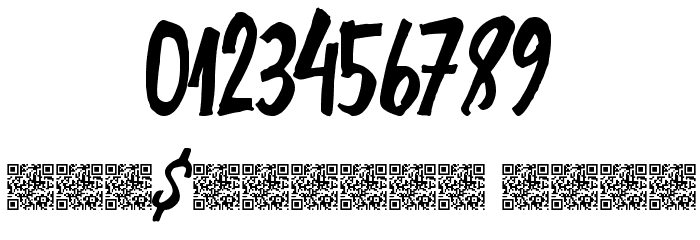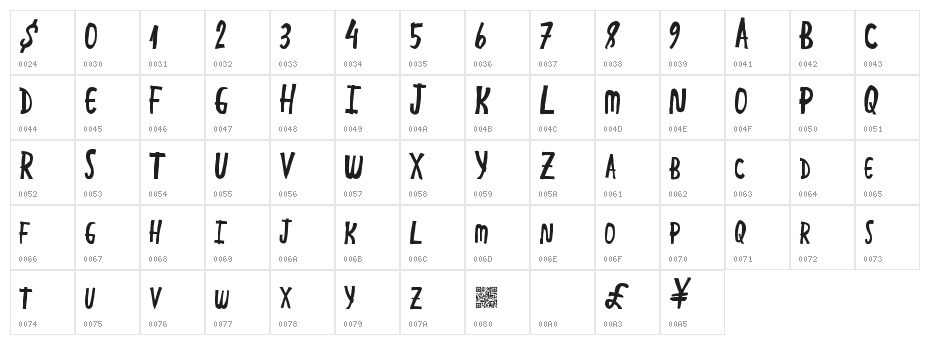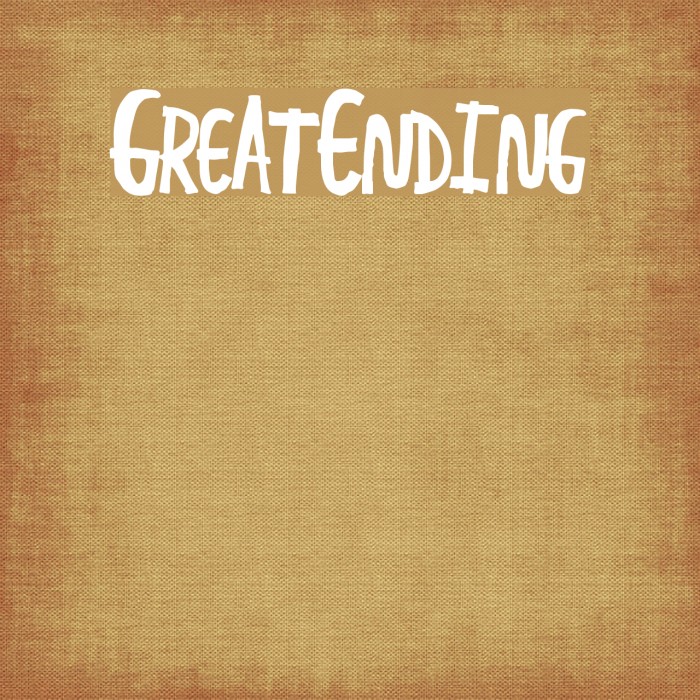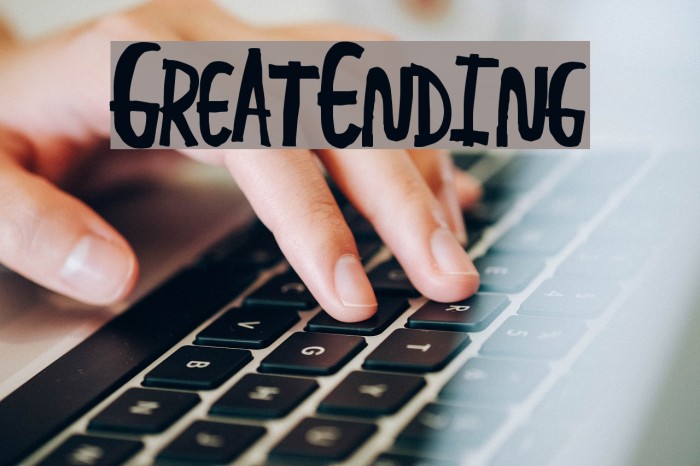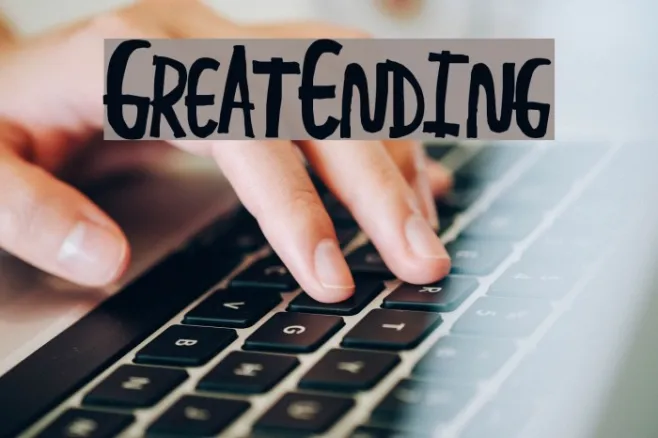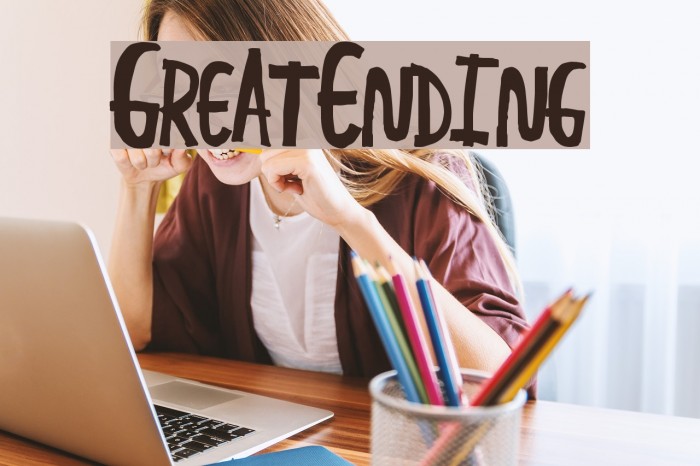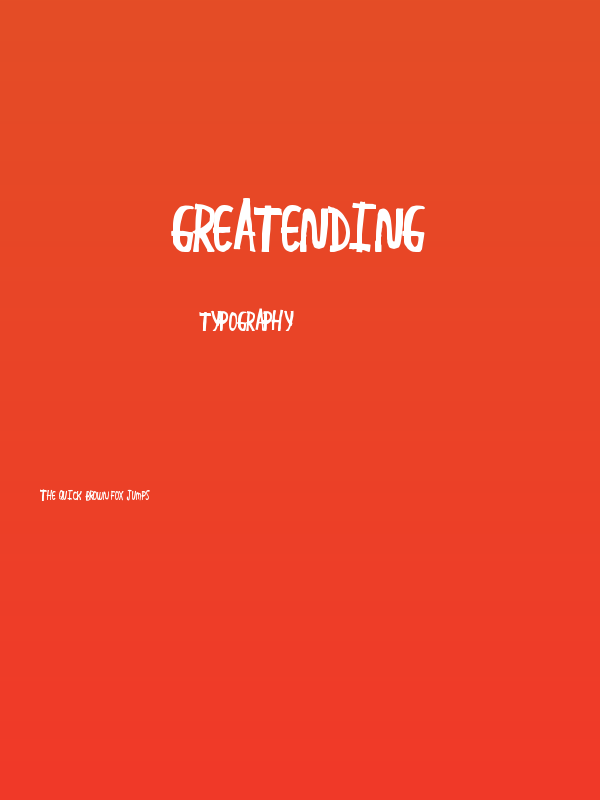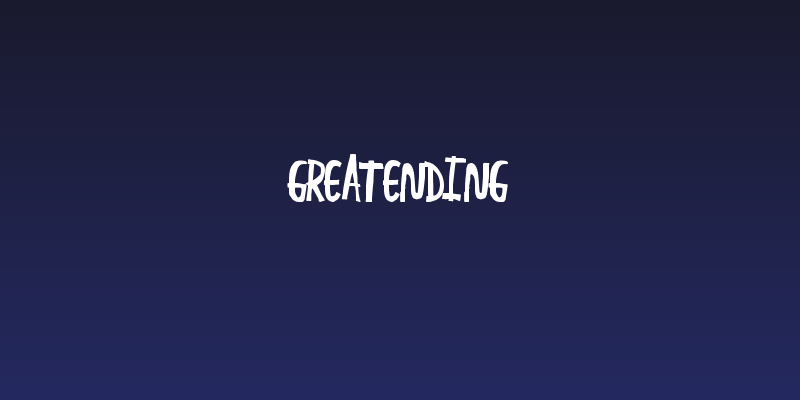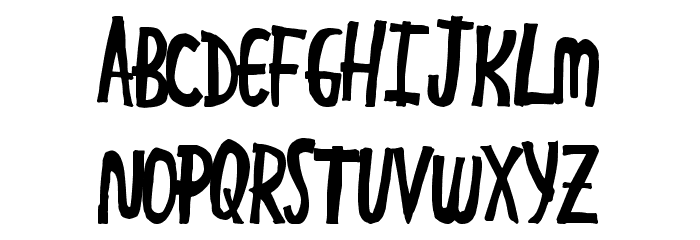
GreatEnding Font
GreatEnding Description
This font features a bold and playful style with a hand-drawn appearance. The letters are slightly irregular, giving it a casual and informal feel. The uppercase and lowercase characters maintain a consistent style, with a noticeable slant and varying stroke widths that add to its dynamic look. The numbers and special characters follow the same playful design, making it suitable for creative projects. The overall appearance is energetic and lively, perfect for capturing attention.
| Proposed Projects | Ideal for children's books, playful branding, posters, and creative invitations. |